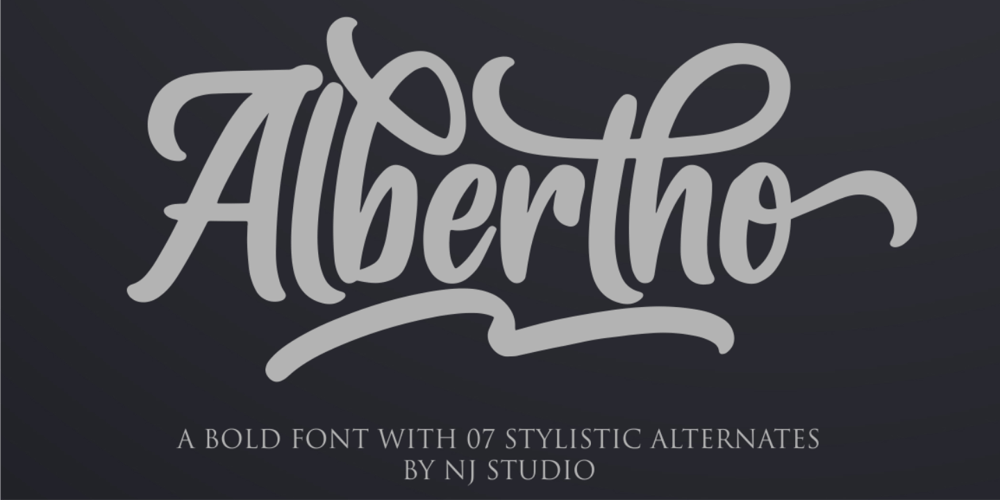
Albertho Font Family was designed by Siti Nurjanah and published by NJ Studio. Albertho contains 1 styles and family package options. Hi…Thank for your visit :)Albertho A Bold Fonts are font designs that are made for various vector designs, printing such as digital wedding invitations, blogs, online shops, social media, while printing can be used in the field of product clothing, accessories, bags, pins, logos, business cards, watermarks and many others …so it can make your product look elegant and attractive, and also Multilingual support!!!Happy design …